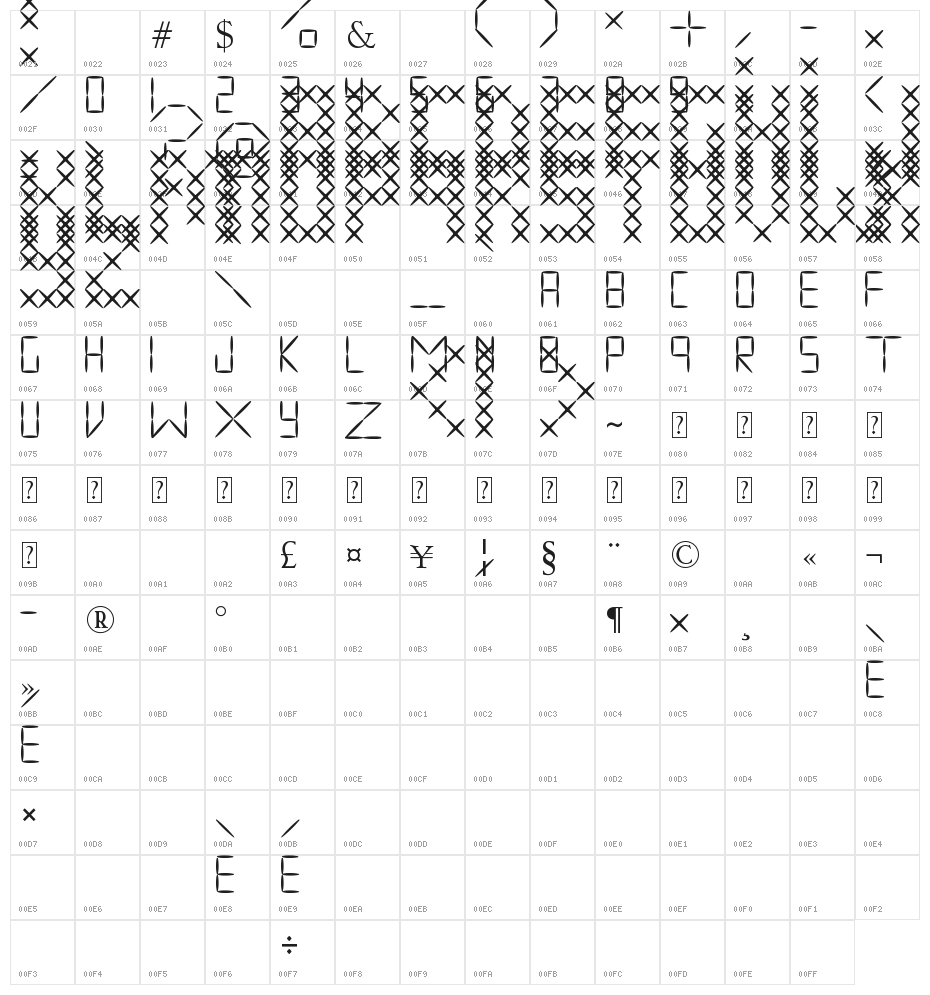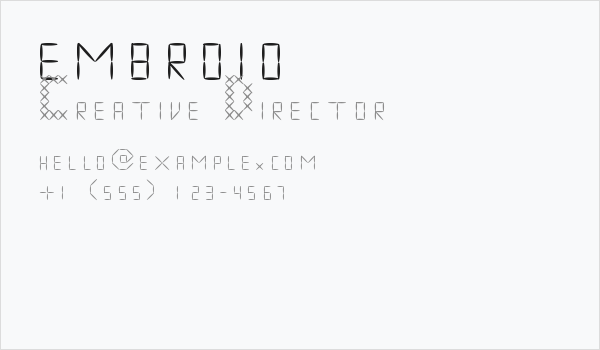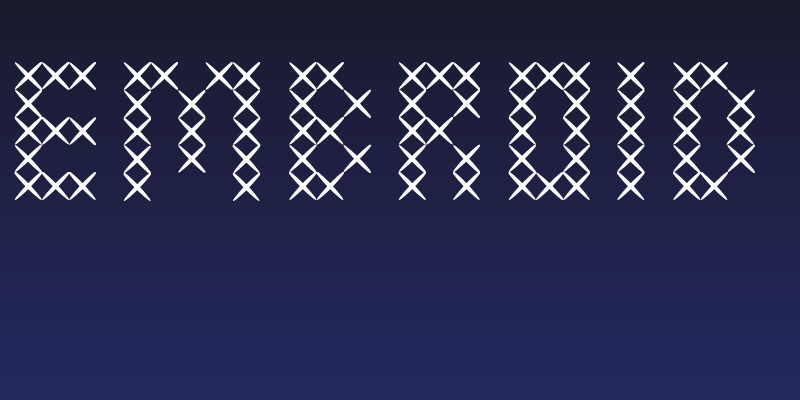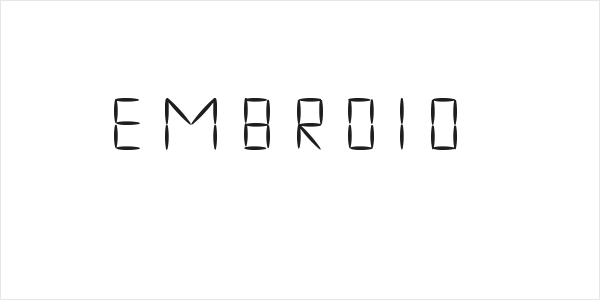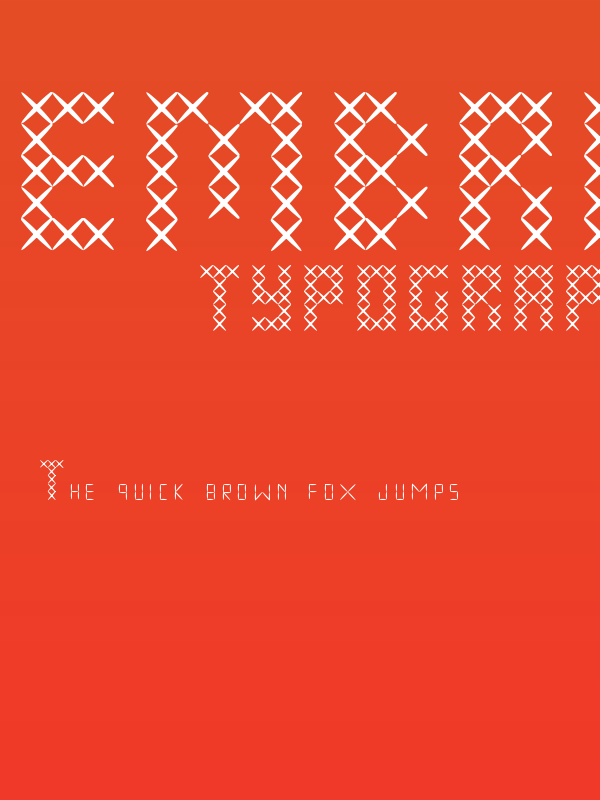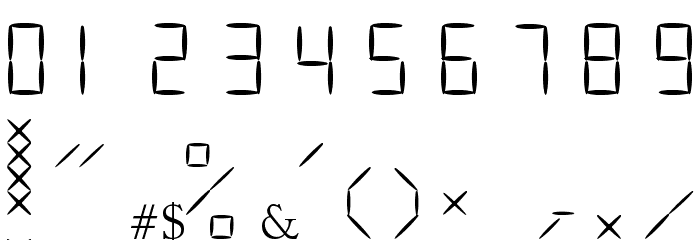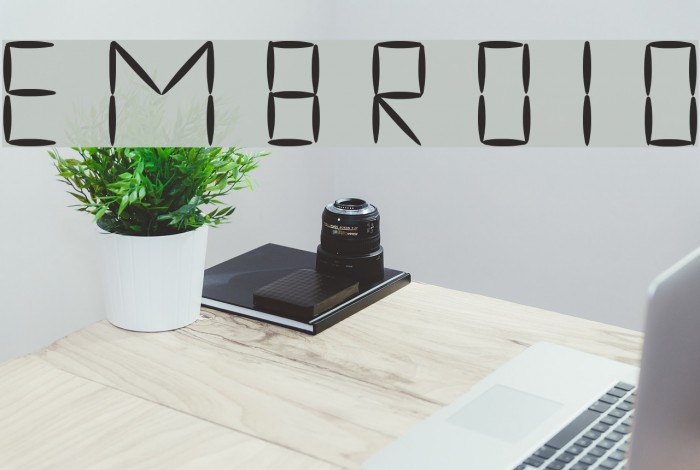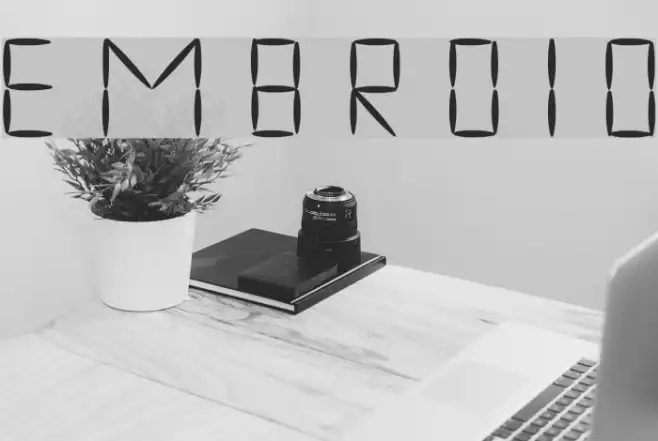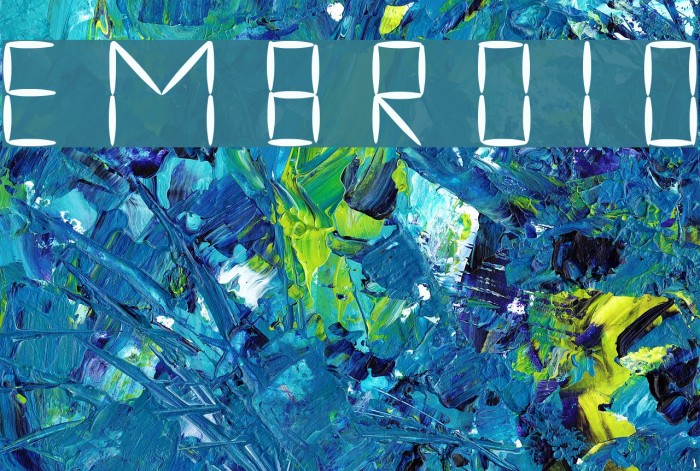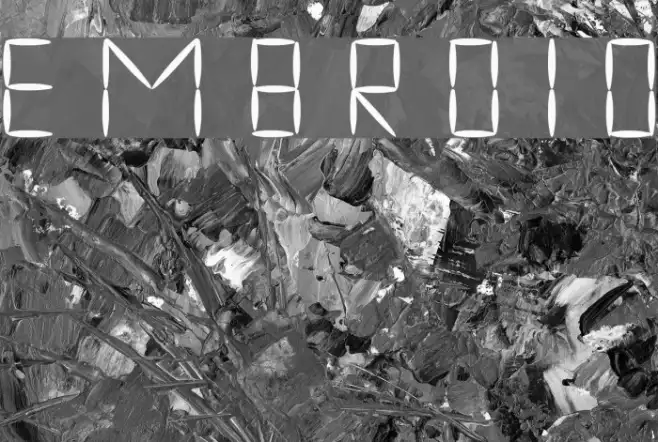
embroid Font
embroid Description
This font features a unique, embroidered style that mimics the appearance of cross-stitching. The uppercase letters are crafted with intersecting lines that create a textured, woven look. The lowercase letters maintain this theme but with a slightly more streamlined design, making them appear less dense than their uppercase counterparts. The numerals and special characters follow the same stitched aesthetic, ensuring consistency across all characters. This font's distinct appearance makes it ideal for projects that require a handcrafted or artisanal feel. Its intricate design is both eye-catching and decorative, suitable for creative applications.
EMBROID UPPERCASE
EMBROID LOWERCASE
EMBROID OTHER CHARS
| Use Case | Logos, Headlines, Craft projects |
| Proposed Projects | Ideal for craft-themed projects, embroidery patterns, handmade product labels, or any design needing a rustic, artisanal touch. |